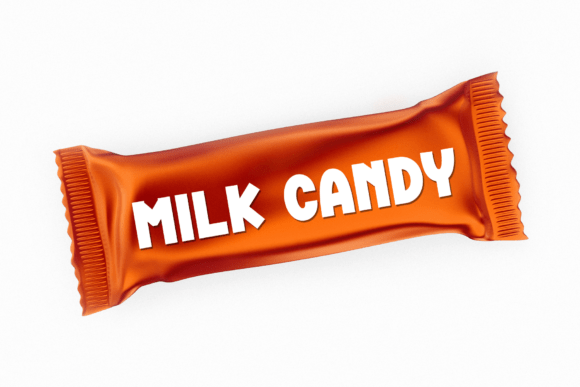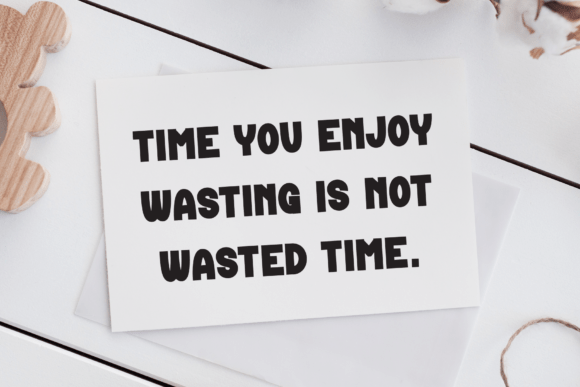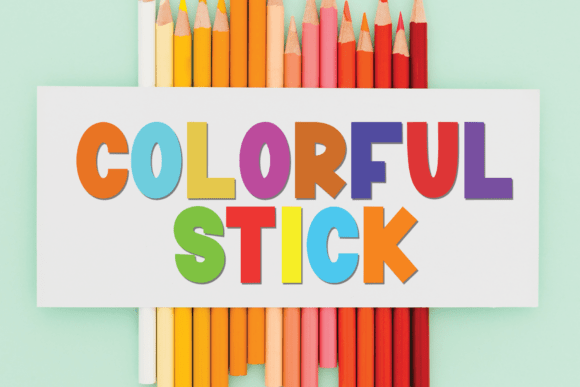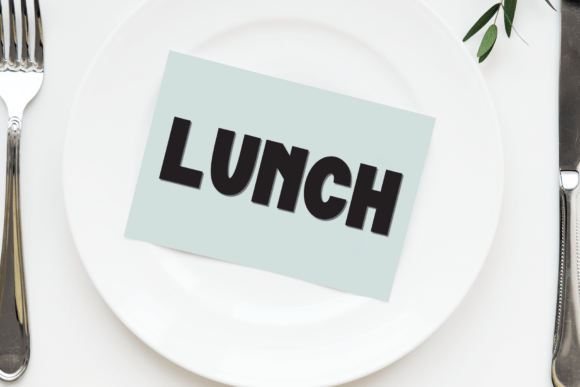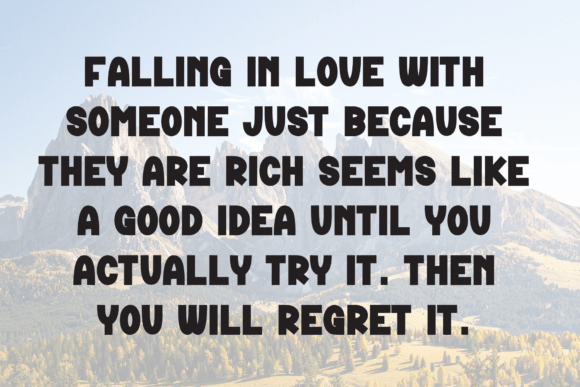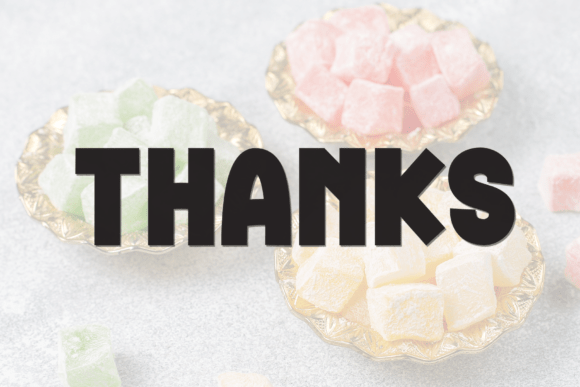
Introduction to Lucky Sugar Font
Have you ever stared at a blank canvas, waiting for inspiration to strike, only to be greeted by a flurry of ideas and creative possibilities? For designers, this is a moment we all cherish – the spark that sets our imagination ablaze and fuels our next great project. And what better way to ignite that spark than with a font that embodies the perfect blend of playfulness and sophistication?
Enter the Lucky Sugar Font, a bold and vibrant display font that’s guaranteed to elevate your creative project to new heights. With its chunky, geometric letterforms and softened curves, this font is the ultimate design resource for anyone looking to make a lasting impression. Whether you’re working on a high-quality logo, packaging design, or merchandise, the Lucky Sugar Font is the perfect companion to help you achieve your creative vision.
Not only is the Lucky Sugar Font a valuable addition to any designer’s toolkit, but it’s also incredibly versatile, making it an ideal choice for both digital and print projects. Plus, with its transparent background and free download option, you can seamlessly integrate it into your next design project without any hassle.
Key Features of Lucky Sugar Font
- Includes a range of glyphs and characters to support a wide range of languages.
- Designed to be scalable, with a high resolution of 300 DPI for crisp and clear display.
- Unique, hand-drawn style with a touch of elegance and sophistication.
- Comes in a single font size, making it easy to use across different creative projects.
- Perfect for designers, artists, and writers looking for a high-quality, free design resource.
Honest Review: Lucky Sugar Font
I recently stumbled upon the Lucky Sugar Font and I have to say, it’s been a game-changer for my creative projects. This free download is a high-quality design resource that I’ve been using to add a touch of elegance to my designs.
Here are some things that work well for me: ✨ The font’s transparent background makes it easy to layer over other design elements. ✨ The font’s sleek, modern design makes it perfect for creative projects that require a sophisticated look. ✨ The free download option is a bonus, making it accessible to designers on a budget.
While I love the Lucky Sugar Font, I do have a few limitations to mention: ⚠️ The font only comes in a few weights, which can limit its versatility. ⚠️ Some users may find the font too modern or sleek for their taste.
Overall, I’m really impressed with the Lucky Sugar Font. It’s a great addition to any designer’s toolkit, and I highly recommend it to anyone looking for a high-quality, free design resource.
Tips for Getting the Most Out of Lucky Sugar Font
Use the Lucky Sugar Font in conjunction with other design elements to create a cohesive and visually appealing design. Experiment with different font sizes, colors, and arrangements to find the perfect look for your creative project.
The Lucky Sugar Font is perfect for use in a variety of creative projects, including blog posts, social media graphics, and marketing materials. Its high-quality design and transparent background make it a versatile and useful design resource.
Alternatives to Lucky Sugar Font
Alex Brush Font is a beautiful, handwritten font that is ideal for design projects that require a personal touch. It features a free download option, making it accessible to designers on a budget. Alex Brush Font is similar to Lucky Sugar Font in its elegant, cursive style, but with a more delicate feel.